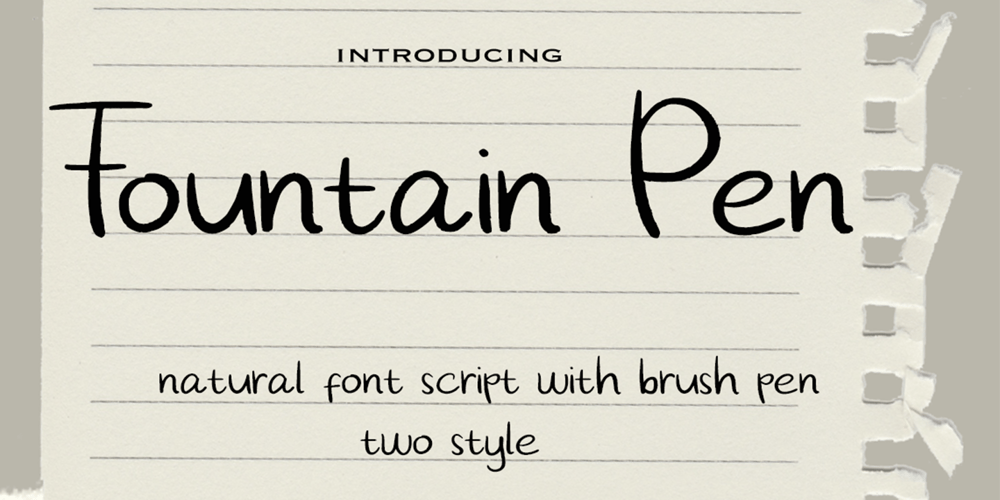
Fountain Pen
Fountain Pen font
Fountain Pen Font Family was designed by Muhammad Zaini and published by Cocodesign. Fountain Pen contains 2 styles and family package options. The font is made with natural and elegant handwriting, suitable for the needs of those of you who want to use it for a variety of amazing purposes. Maybe you can use this in various media to make it look attractive and natural.